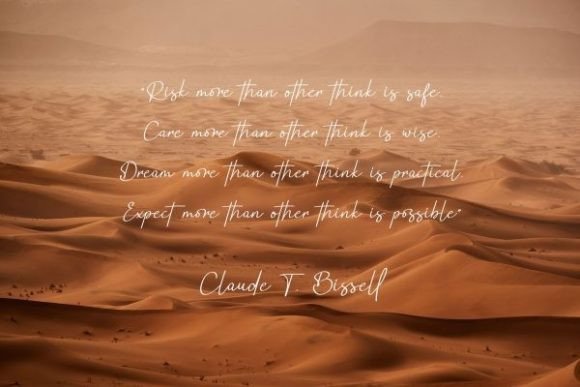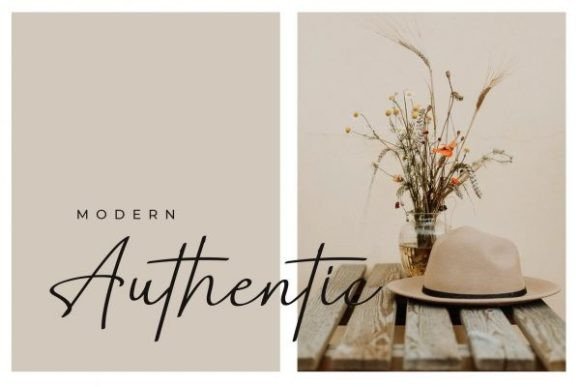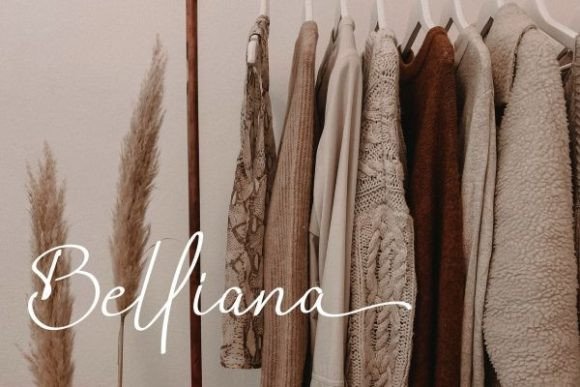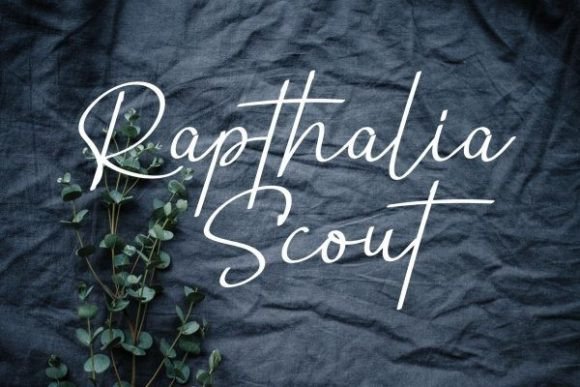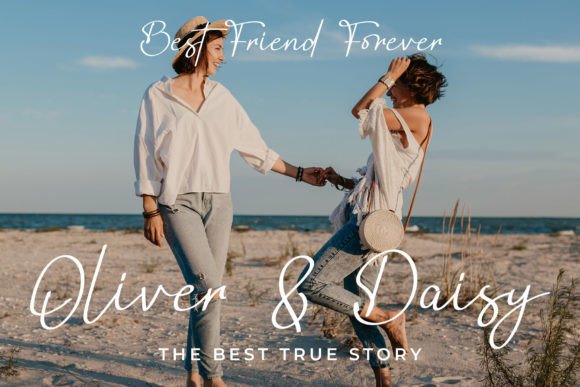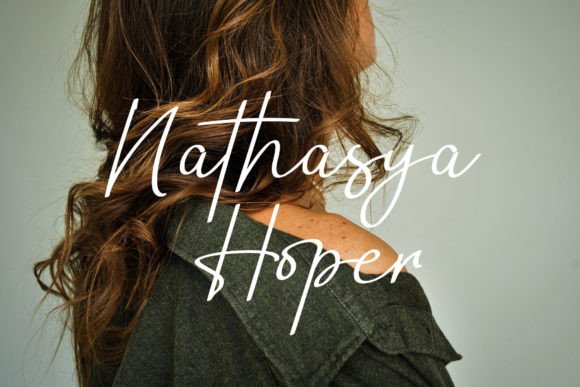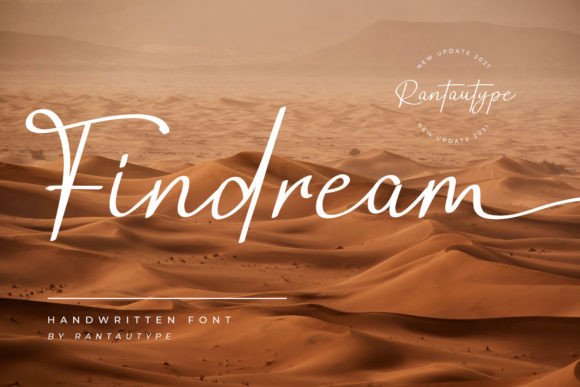
Introducing Findream Font: Elevate Your Designs with Modern Elegance
In the world of design, fonts play a crucial role in conveying the message and aesthetic of a project. Whether you’re a professional designer, a crafty DIY enthusiast, or a business owner looking to brand your venture, finding the right font can make all the difference. This is where Findream Font comes into play – a modern and classy script font designed to add a touch of sophistication and style to your creations.
The Characteristics of Findream Font
Findream Font stands out with its unique blend of readability, style, and catchiness. Its modern script design makes it an excellent choice for a wide range of design projects, including watermarks, signatures, logos, quotes, album covers, business cards, and many more. The font’s classy appearance ensures that your designs exude professionalism and elegance, making it perfect for projects that demand a high level of sophistication.
One of the significant advantages of Findream Font is its PUA (Private Use Area) encoding. This feature allows designers to access all the glyphs and swashes easily, providing a wide range of creative possibilities. With PUA encoding, you can unlock the full potential of Findream Font, experimenting with different styles and variations to match your design’s unique needs.
Versatility in Design Projects
The versatility of Findream Font is one of its most compelling features. Its application is not limited to a specific type of design project. Here are some of the areas where Findream Font can make a significant impact:
• Watermarks: Add a professional and stylish touch to your photographs and digital artworks.
• Signatures: Create elegant and distinctive signatures for your emails, documents, and artworks.
• Logos: Design memorable and sophisticated logos for your business or brand.
• Quotes: Present inspirational and motivational quotes in a visually appealing way.
• Album Covers: Give your music albums a stylish and captivating cover design.
• Business Cards: Stand out with professional and elegant business cards that make a lasting impression.
Why Choose Findream Font?
With countless fonts available, why should Findream Font be your choice? Here are a few reasons:
• Modern and Classy: Findream Font offers a contemporary and sophisticated look that can elevate any design.
• Readability: Despite its stylish appearance, Findream Font remains highly readable, ensuring your message is conveyed clearly.
• PUA Encoding: Enjoy easy access to a wide range of glyphs and swashes, allowing for greater creative flexibility.
• Versatility: Use Findream Font across various design projects, from personal crafts to professional branding.
Tips for Using Findream Font
To make the most of Findream Font, consider the following tips:
• Experiment with Sizes: Findream Font can make a significant impact in both large and small sizes. Experiment with different sizes to find the perfect fit for your project.
• Play with Colors: The font’s elegance can be further enhanced by choosing the right color scheme. Consider the mood and theme of your design when selecting colors.
• Mix and Match: Don’t be afraid to combine Findream Font with other fonts. A script font like Findream can pair well with sans-serif fonts for a balanced look.
• Utilize Swashes: Take advantage of the PUA encoding to add swashes and glyphs, giving your text a unique and personalized touch.
Font Name Findream Font
Author RantauType
Findream Font is a versatile and stylish script font that can add a modern and classy touch to your designs. With its readability, PUA encoding, and wide range of applications, it’s an excellent choice for designers and crafters looking to elevate their projects. Whether you’re creating watermarks, logos, quotes, or business cards, Findream Font offers the perfect blend of elegance and creativity. Explore the possibilities with Findream Font and take your designs to the next level.